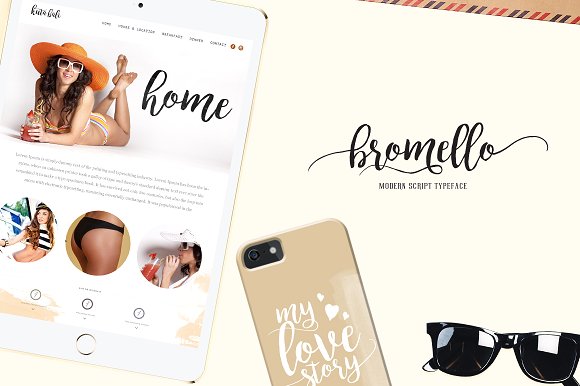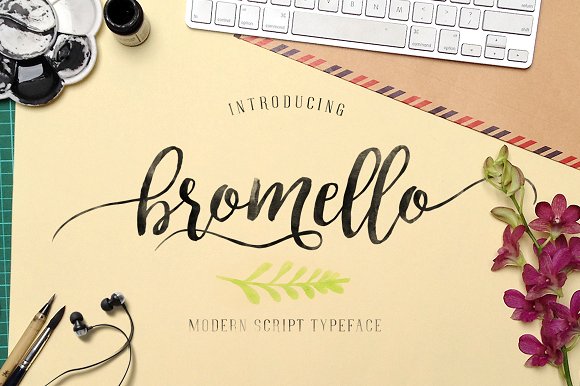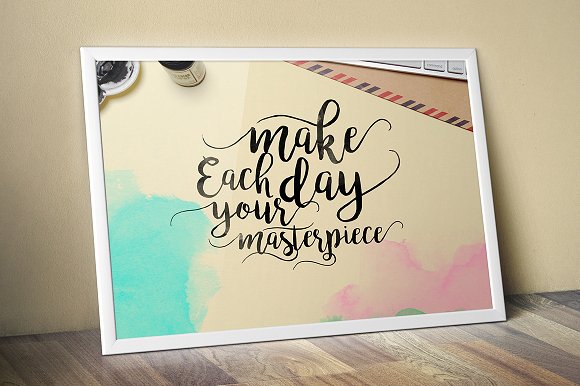
Bromello Font: A Modern Script Typeface for Creative Projects
In the world of typography, fonts play a crucial role in conveying the tone and personality of a design. For designers and crafters looking for a unique and elegant script typeface, Bromello Font is an excellent choice. This modern script font was handmade with a brush, giving it a distinctive and personalized touch.
What is Bromello Font?
Bromello Font is a modern script typeface that exudes elegance and sophistication. Its handmade brush strokes give it a warm and organic feel, making it perfect for a variety of creative projects. Whether you’re designing wedding cards, logos, headers, posters, book covers, or any other visual material, Bromello Font is an excellent choice.
Characteristics of Bromello Font
Bromello Font boasts several characteristics that make it a versatile and desirable font for designers and crafters. Some of its key features include:
- Handmade with a brush: The font’s handmade brush strokes give it a unique and personalized touch, making it perfect for designs that require a human touch.
- Modern script typeface: Bromello Font is a modern script typeface that is both elegant and sophisticated, making it suitable for a wide range of design projects.
- Highly versatile: The font can be used for various design projects, including wedding cards, logos, headers, posters, book covers, and more.
Uses of Bromello Font
Bromello Font is an incredibly versatile font that can be used for a wide range of design projects. Here are some of the most popular uses of this beautiful font:
- Wedding cards and invitations: The font’s elegant and sophisticated design makes it perfect for wedding cards and invitations.
- Logos and branding: Bromello Font can be used to create unique and memorable logos and branding materials.
- Headers and titles: The font’s modern script design makes it ideal for headers and titles in various design projects.
- Posters and flyers: Bromello Font can be used to create eye-catching posters and flyers that grab attention.
- Book covers and publishing: The font’s elegant design makes it suitable for book covers and publishing projects.
Why Choose Bromello Font?
With so many fonts available, why choose Bromello Font? Here are some reasons why designers and crafters love this font:
- Unique and distinctive: Bromello Font’s handmade brush strokes give it a unique and distinctive touch that sets it apart from other fonts.
- Elegant and sophisticated: The font’s modern script design makes it perfect for designs that require an elegant and sophisticated touch.
- High-quality design: Bromello Font is designed with high-quality craftsmanship, ensuring that it looks great in any design project.
Tips for Using Bromello Font
To get the most out of Bromello Font, here are some tips for using it in your design projects:
- Use it for headlines and titles: Bromello Font is perfect for headlines and titles, where its elegant design can shine.
- Pair it with complementary fonts: Pair Bromello Font with complementary fonts to create a visually appealing design.
- Experiment with different colors and textures: Bromello Font looks great in various colors and textures, so don’t be afraid to experiment and find the perfect combination for your design.
In conclusion, Bromello Font is a modern script typeface that offers a unique and elegant touch to various design projects. Its handmade brush strokes, modern script design, and high-quality craftsmanship make it a versatile and desirable font for designers and crafters. Whether you’re designing wedding cards, logos, headers, posters, book covers, or any other visual material, Bromello Font is an excellent choice.